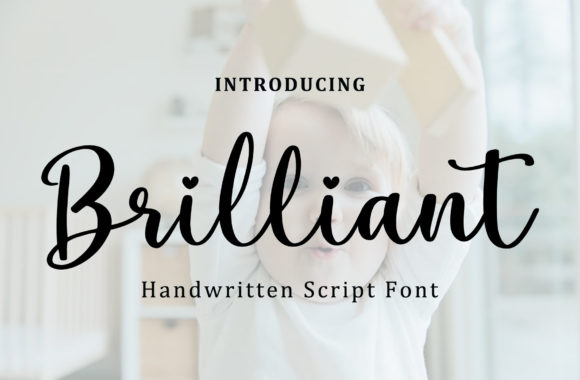
The Brilliant Font: Elevate Your Designs with Elegance and Flow
Have you ever been in the middle of a design project, and suddenly, you’re stuck on finding the perfect font? I recall a recent experience where I was working on a client’s branding project, and I just couldn’t find a font that captured the essence of their luxury brand. That’s when I stumbled upon the Brilliant font, and it completely transformed my design. In this article, I’ll share my journey with this stunning font, its features, and how you can make the most of it in your designs.
A Personal Encounter with Brilliant
I was working on a luxury brand’s logo design, and I needed a font that exuded elegance and sophistication. After hours of searching, I came across Brilliant, a luxurious handwritten font that instantly caught my attention. Its beautiful, balanced character and flowing strokes made it perfect for the project. I was impressed by its versatility, and it paired well with various design elements. The fact that it’s PUA encoded made it easy for me to access the amazing glyphs and ligatures, taking my design to the next level.
An Honest Review of Brilliant
• ✨ Luxurious and elegant handwritten style
• ✅ Beautifully balanced character and flowing strokes
• 🎉 PUA encoded for easy access to glyphs and ligatures
• 👍 Versatile and pairs well with various design elements
While Brilliant is an exceptional font, there are a few minor considerations to keep in mind:
• 🤔 Limited use of uppercase letters, which might require creative workarounds
• ⚠️ Some users might find the font a bit too ornate for certain design projects
The Designer Inspiration Behind Brilliant
While the true story behind Brilliant’s creation remains a mystery, it’s easy to imagine that the designer was inspired by the elegance of handwritten calligraphy. Perhaps they wanted to create a font that would bring a touch of luxury and sophistication to designs. Whatever the inspiration, Brilliant has undoubtedly become a go-to font for designers seeking to elevate their work.
A: PUA (Private Use Area) encoding allows font users to access a wide range of glyphs and ligatures, making it easier to customize and personalize their designs.
Q: Is Brilliant suitable for body text or long-form content?
A: While Brilliant is a beautiful font, it’s best suited for headlines, titles, or short-form content. For body text or long-form content, a more readable font might be more suitable.